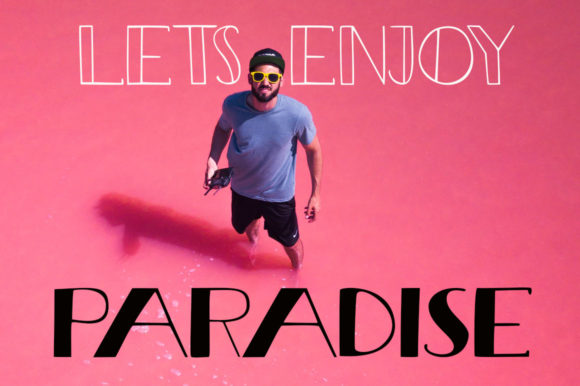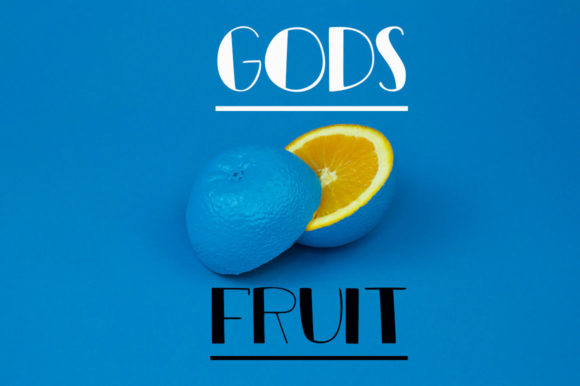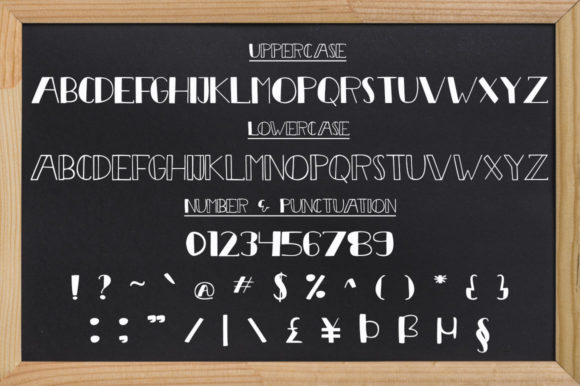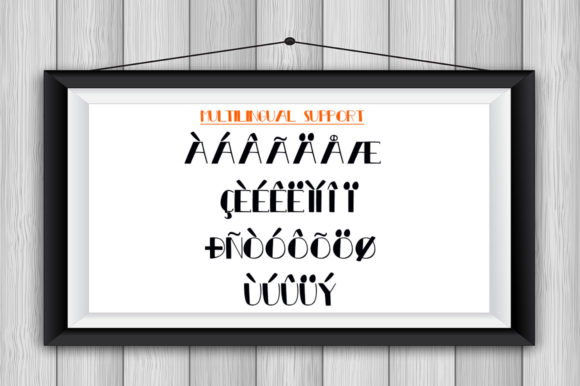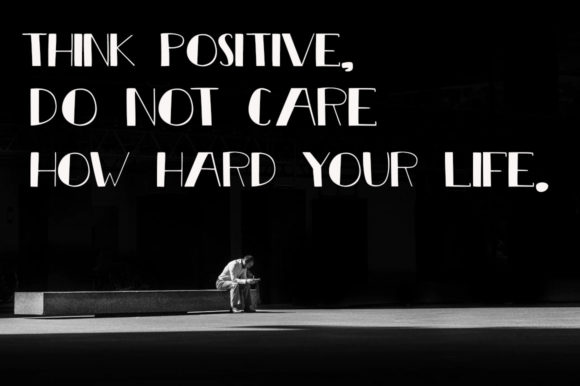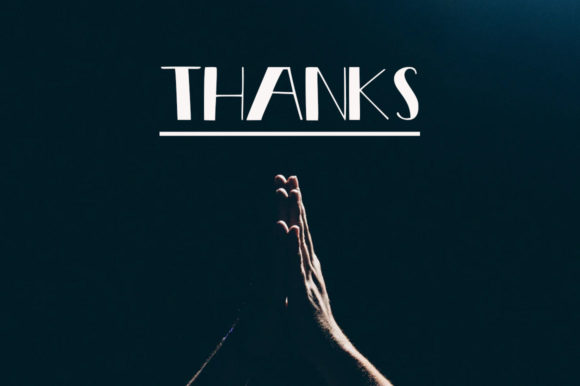
Gods Island Font
About Gods Island Font
Gods Island is a bold and neat lettered handwritten font. Its simple style makes this font incredibly versatile, fitting a wide range of designs!